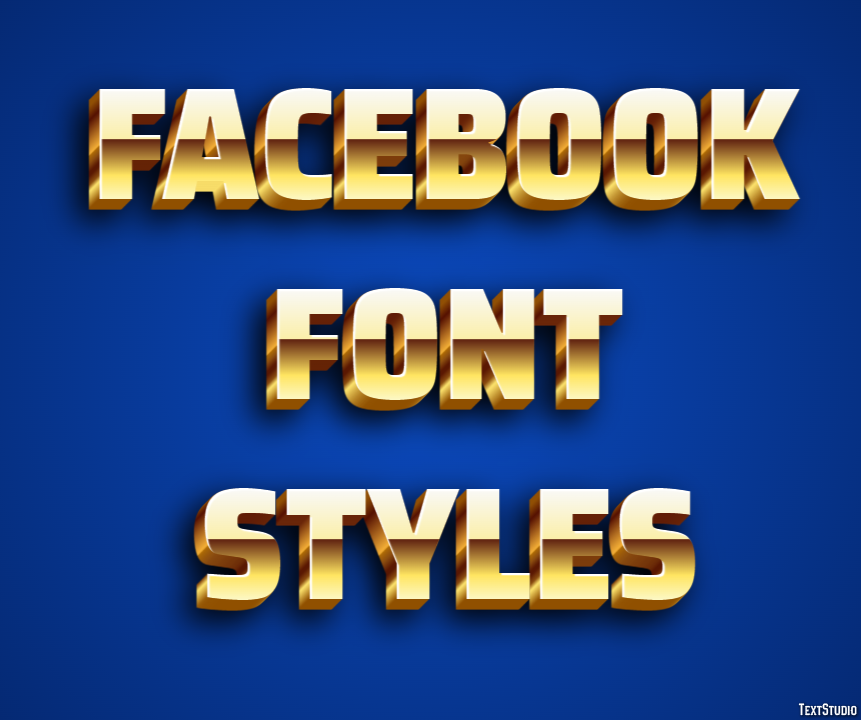
Golden 3D text
Facebook Font Styles Text Effect
Font effect designs Facebook Font Styles.
Create stunning and elegant text effects with our font style text effect generator. Transform your ordinary fonts into dazzling golden masterpieces with a bright and shiny touch. Whether it's for your logo or 3D designs, our generator will add a touch of golden brilliance to your creations.